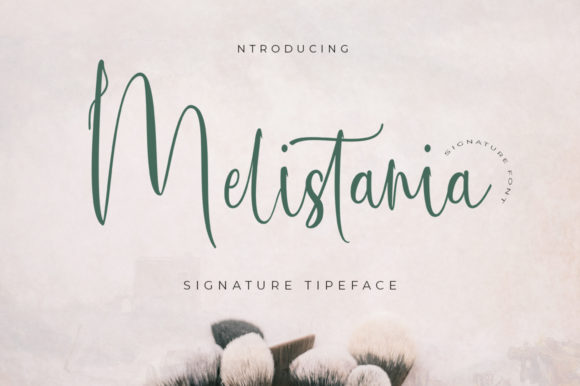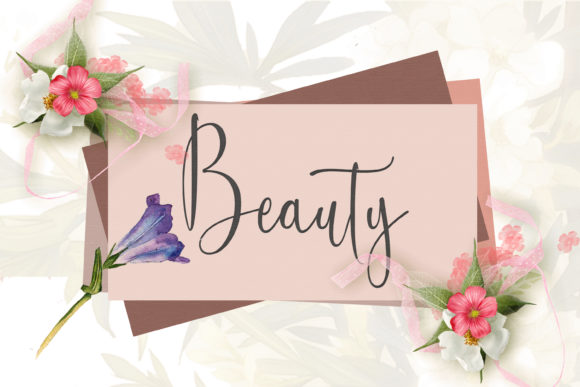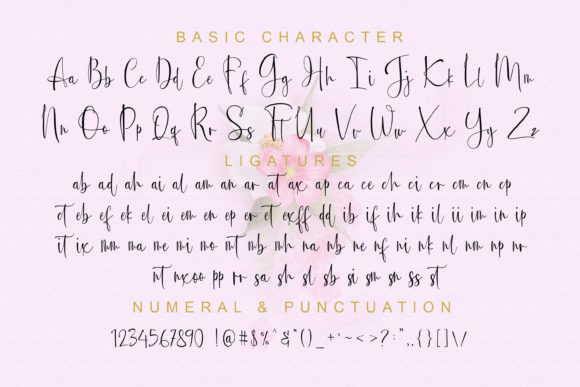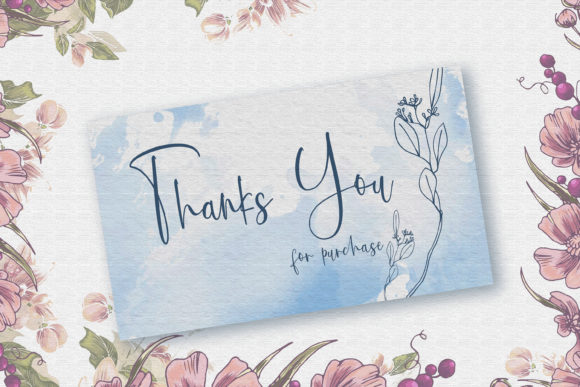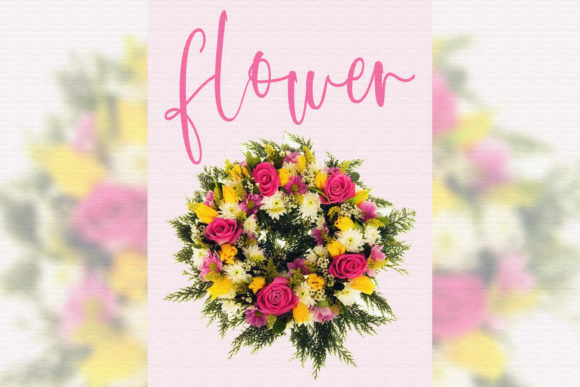
Melistania Font
About Melistania Font
Melistania is a beautiful script font. It has a classy, elegant, and modern look which can be used for logos, branding, invitations, stationery, wedding designs, social media posts, and any other design in need of a handwritten touch.